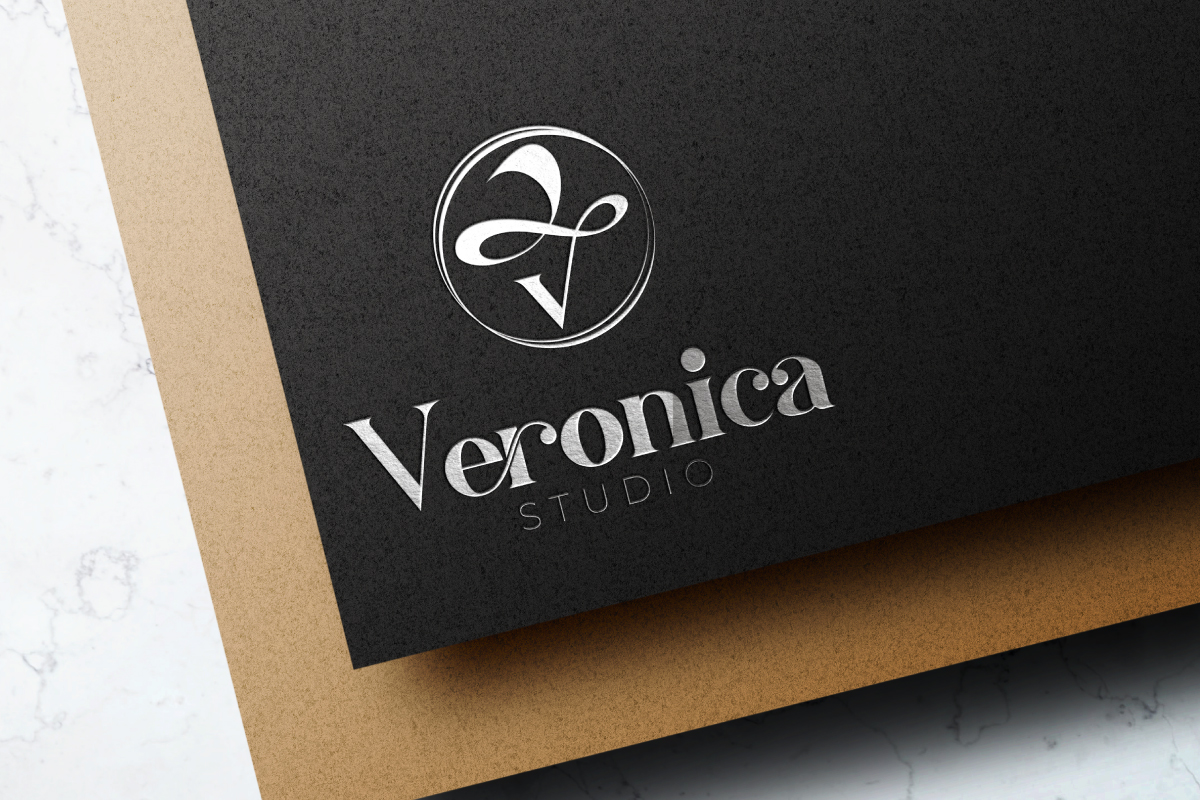
Bernardston Font
Bernardston Serif Font
It’s a stylish display font with classic vintage vibes. The font comes with several alternatives characters to make it unique and exclusive. Specially made by NoahType, this font will add a personal look twist to any design project. When we make this font, we really want to create a touch that is so special for you! that it gives a special impression with unique shapes. This font is for anyone who needs vintage, classic and stylish style for their designs.
This font will be awesome and suitable for spa beauty, hotel, resort, fashion, products packaging, fashion, boutique and etc. more! Bernardston Font includes full set of Uppercase and Lowercase Basic Characters, Numerals and Punctuation. Perfectly make natural writing look that add more beautiful and aesthetic fonts to perfect your extraordinary project. Bernardston Font will be awesome for logotype, lettering, products packaging, signage, stationery, title etc.